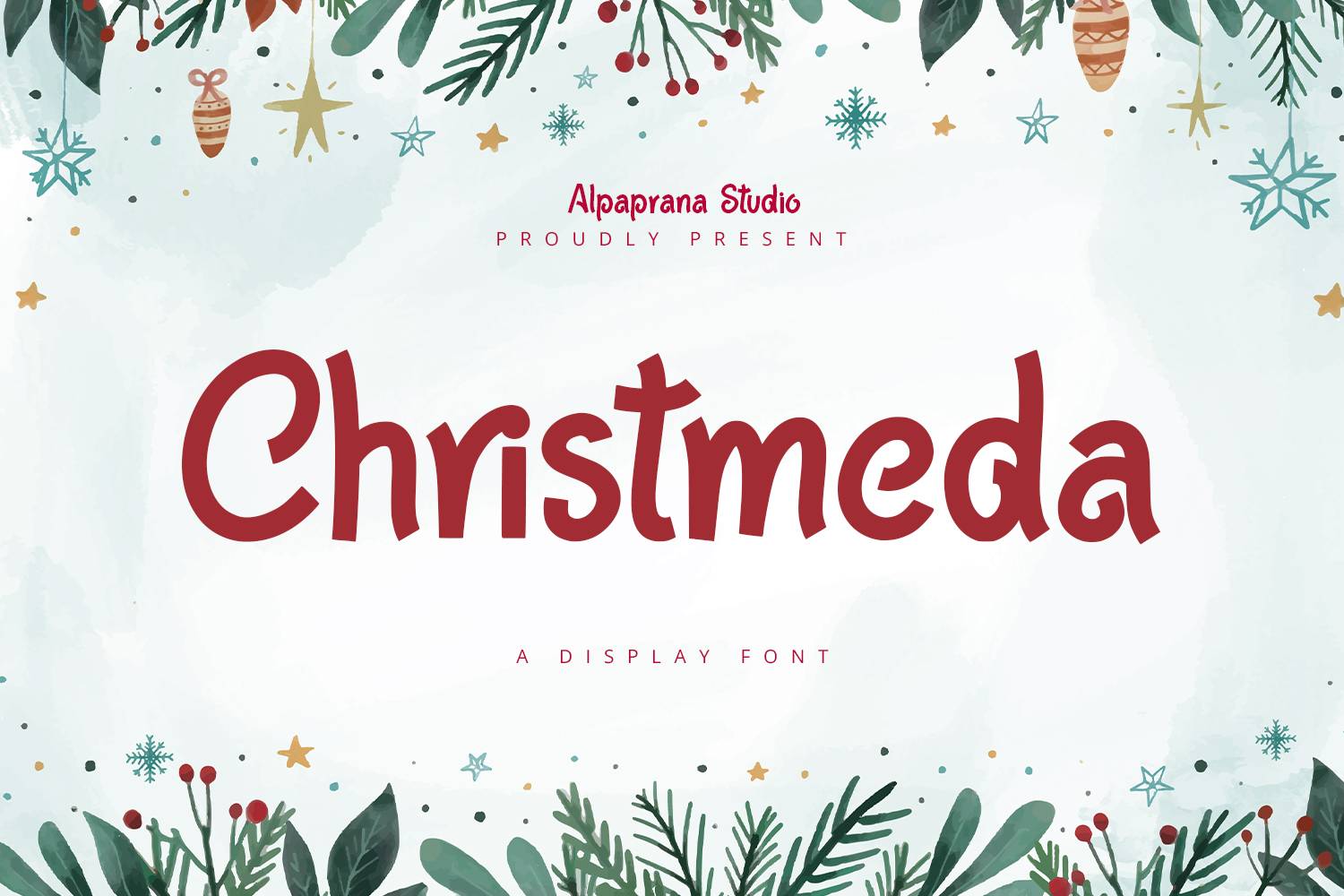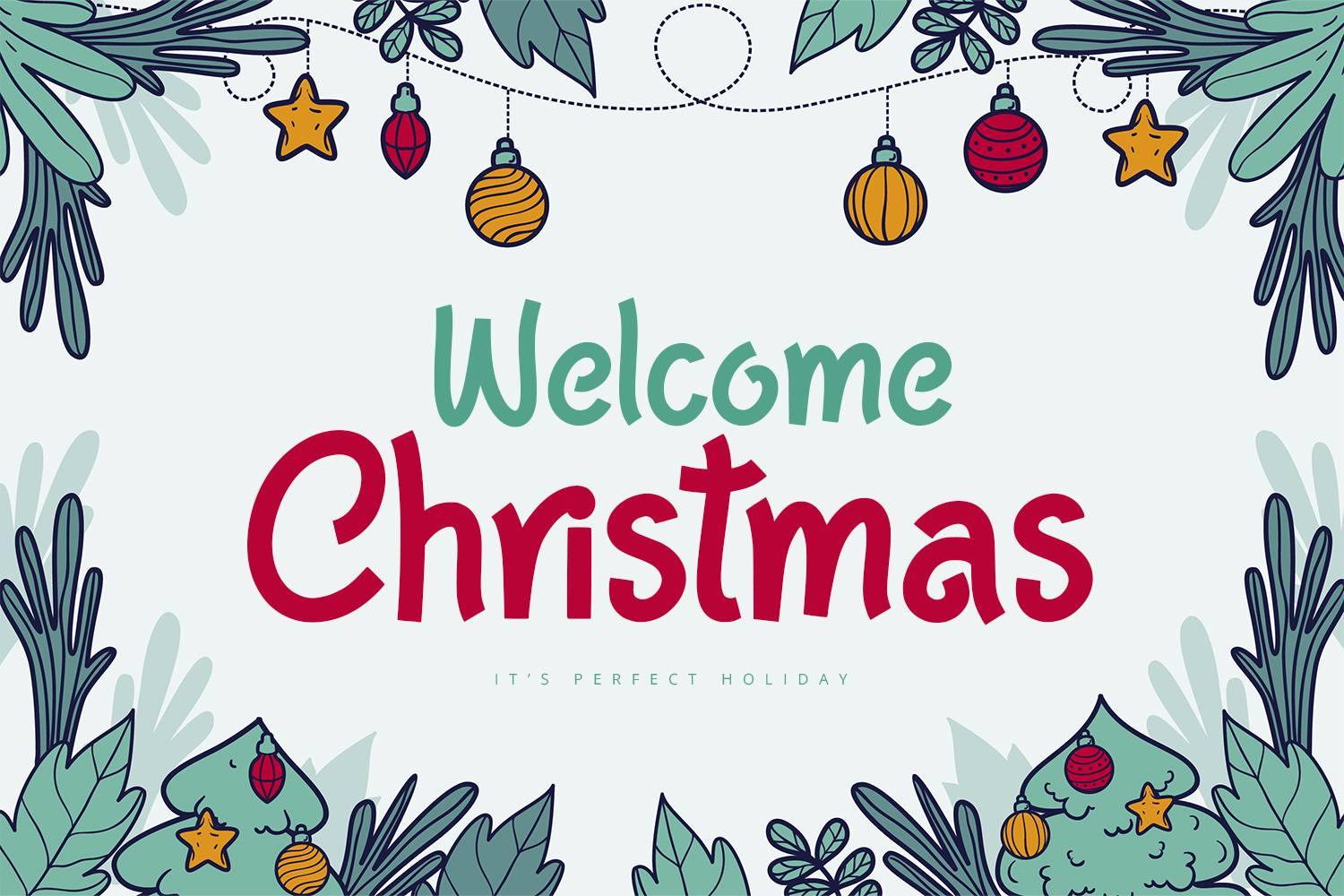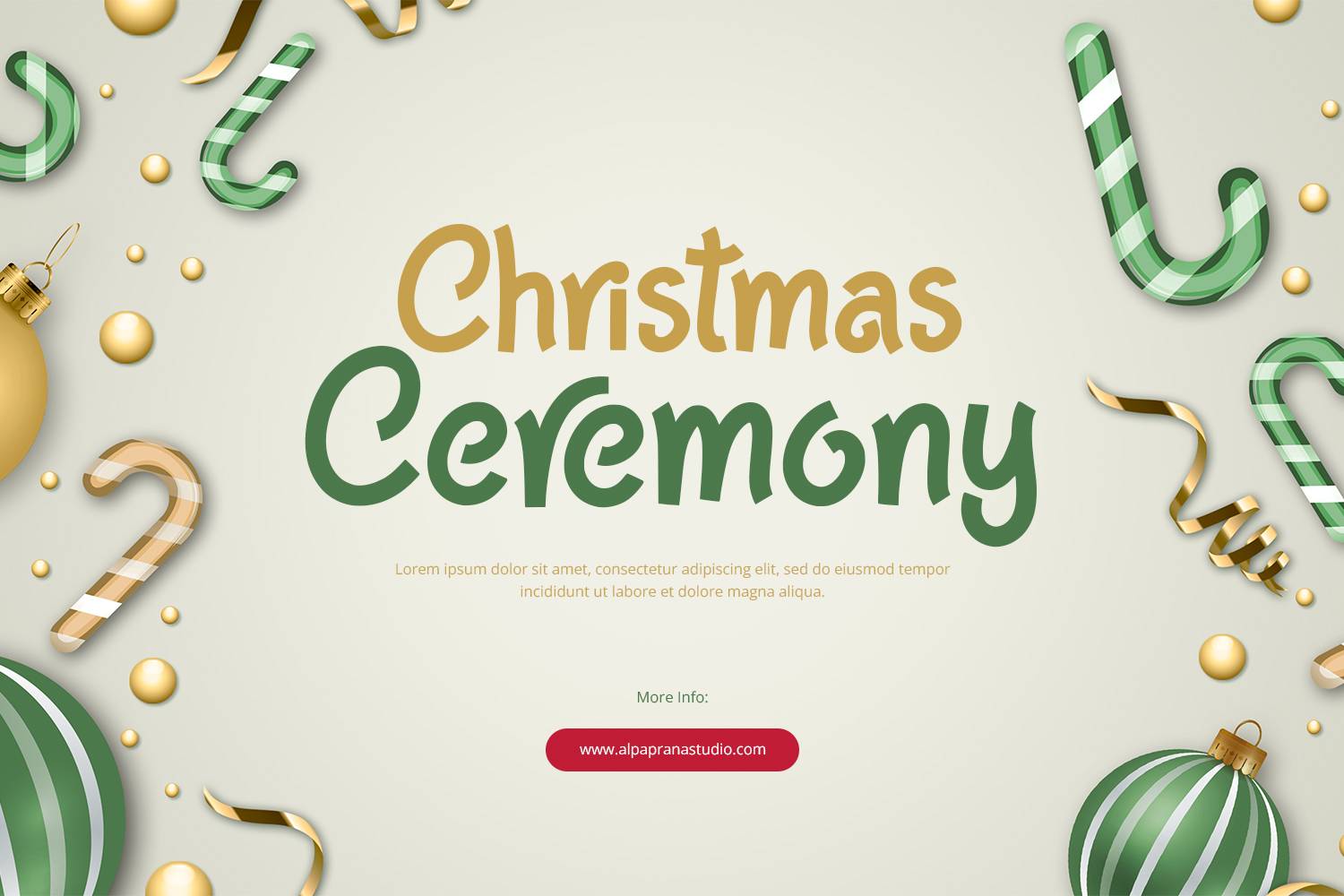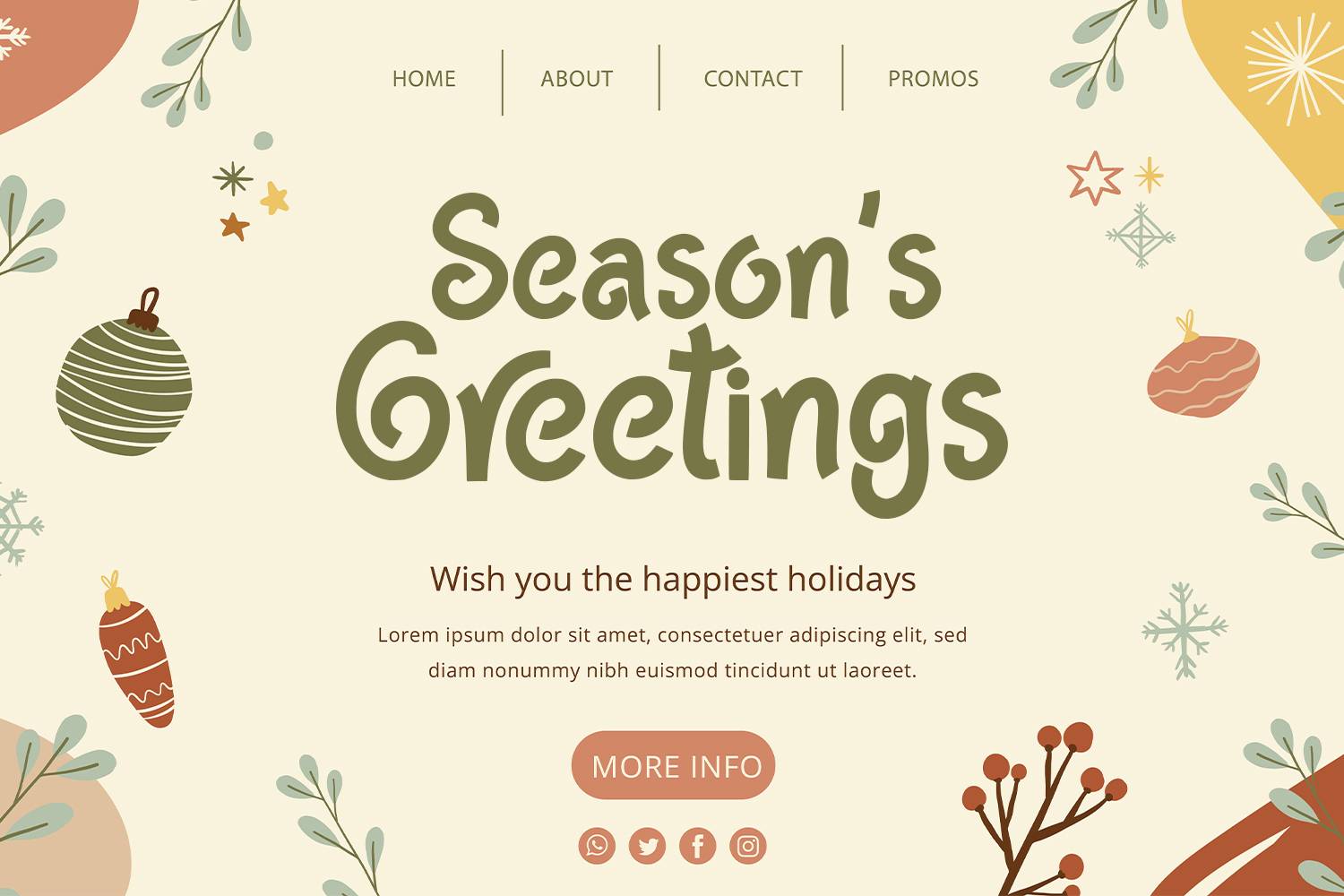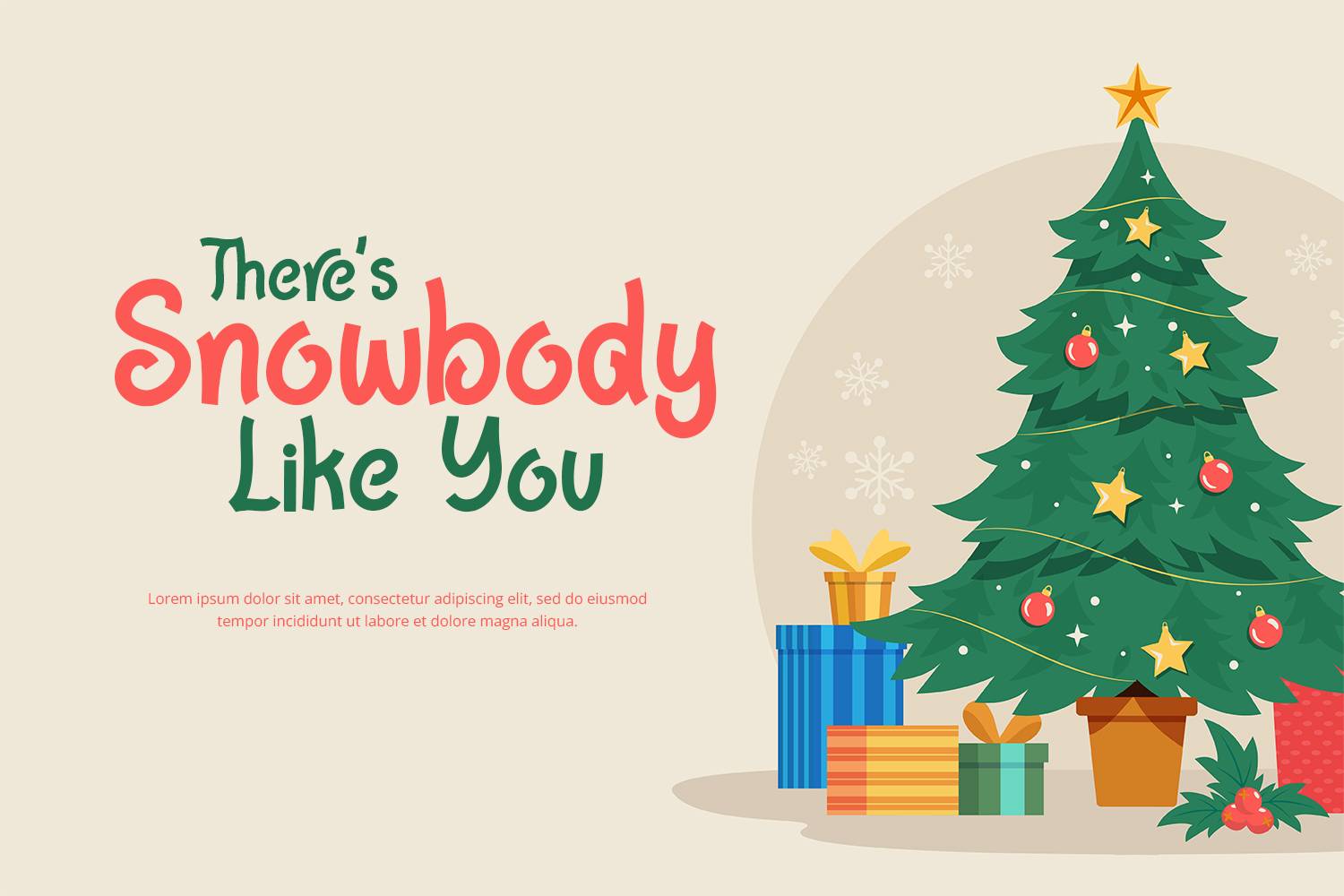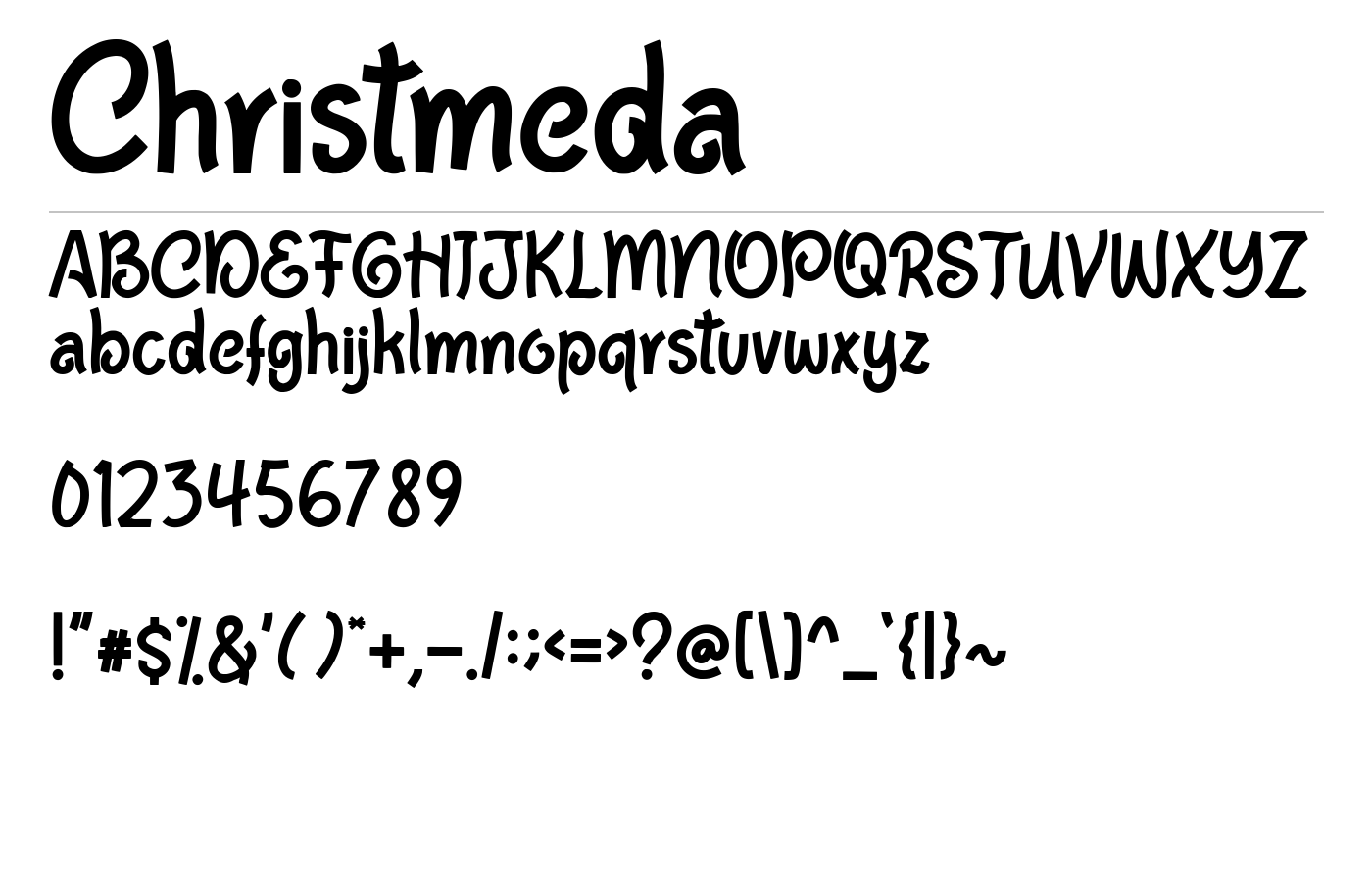
Christmeda is a playful and quirky sans serif font with irregular shapes and a hand-drawn feel, featuring medium weight and moderate contrast. Its friendly and informal style makes it ideal for creative projects such as children’s books, casual branding, and fun posters where a lively and approachable personality is desired. This font stands out with its unique letterforms and casual energy, perfect for designs that want to convey warmth and individuality.
Christmeda Font
About Christmeda Font